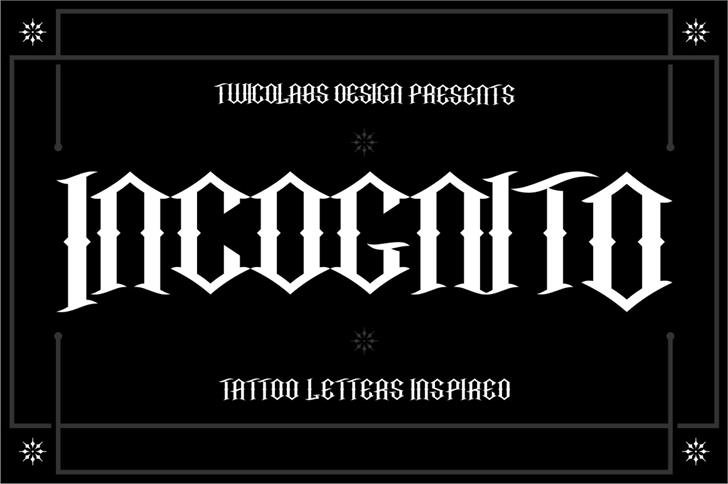
Incognito Font
Incognito is a font/typeface with a mix of modern blackletter and tattoo lettering. Perfect choice for your tattoo-themed design / typography. Available in uppercase, lowercase, numerals and punctuations
Incognito Blackletter Font